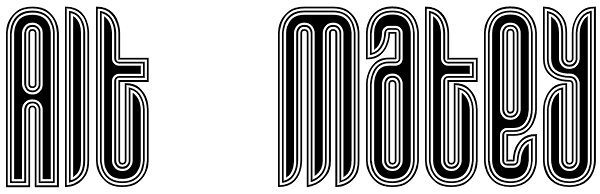
Alt Matey
Matey is a four-weight typeface for logos and titles. Feature on TypographyServed.com http://www.behance.net/gallery/Alt-Matey-Typeface/654010